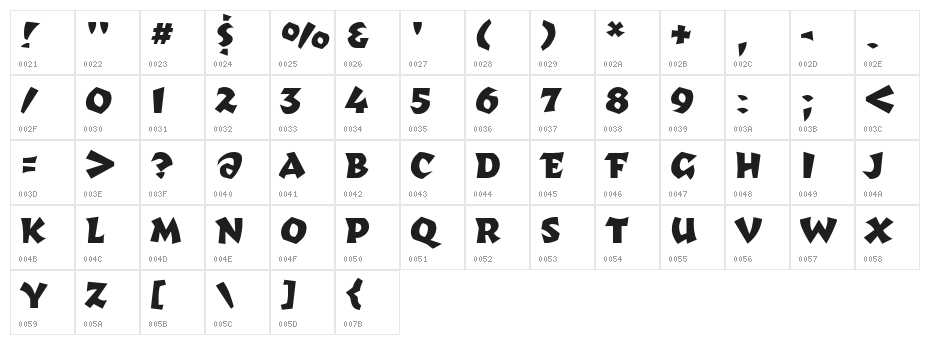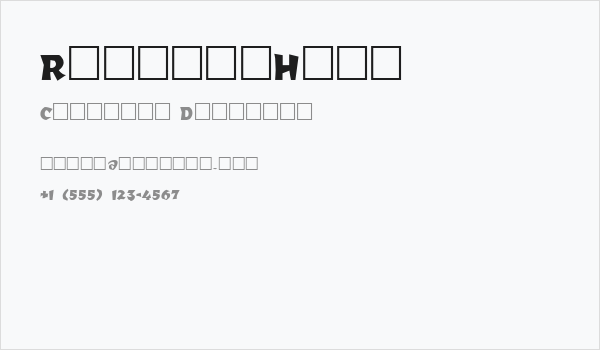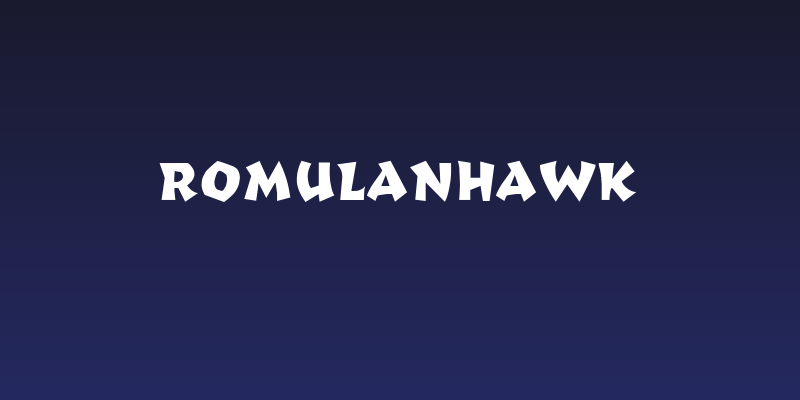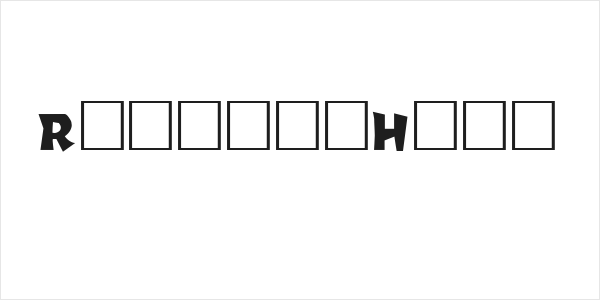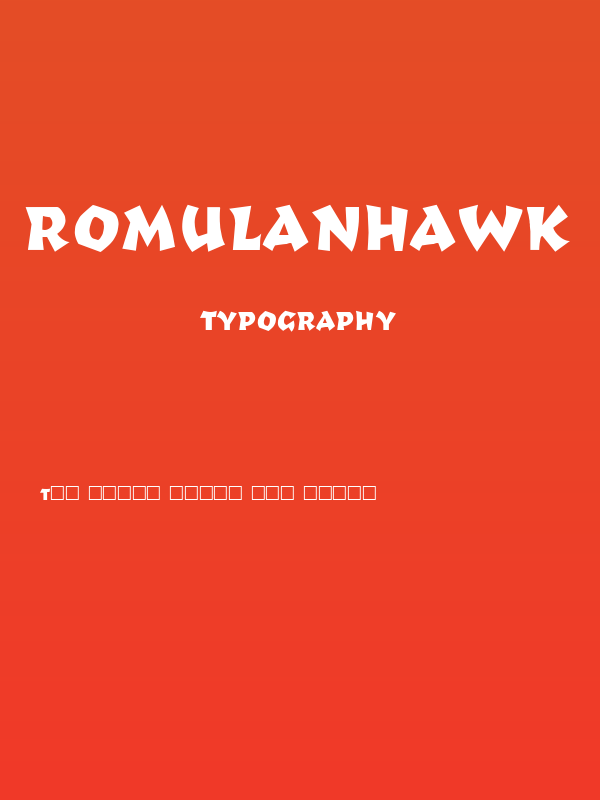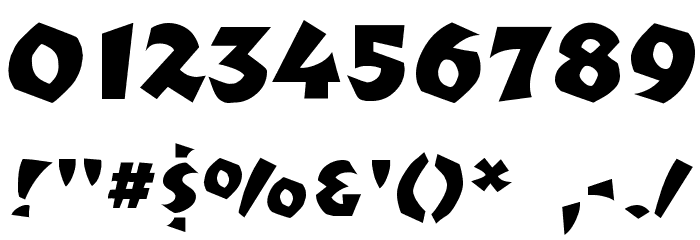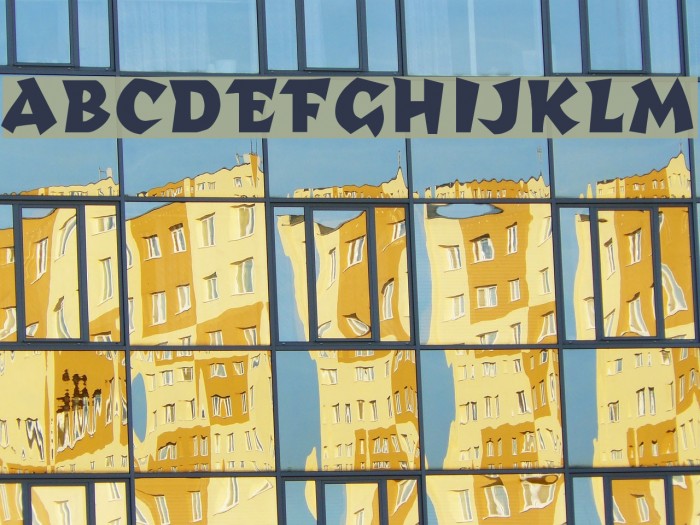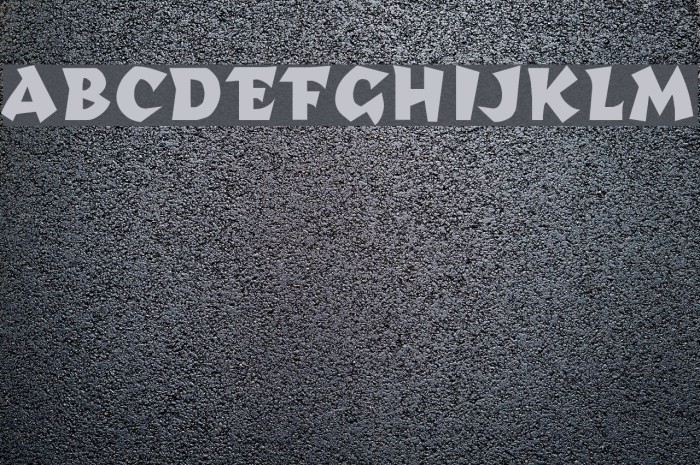
RomulanHawk Font
RomulanHawk Description
This font features a bold and angular design, characterized by sharp edges and a dynamic, futuristic appearance. The uppercase letters are particularly striking, with a strong presence and a slightly aggressive style. The numbers and special characters maintain this bold aesthetic, ensuring consistency across all glyphs. The font's unique style makes it stand out, with a design that suggests movement and energy. Its geometric shapes and thick strokes contribute to a high-impact visual effect, making it suitable for attention-grabbing headlines or titles.
| Overall Style | Futuristic, Dynamic |
| Proposed Projects | Ideal for sci-fi themed posters, video game titles, or any project requiring a bold, futuristic look. |